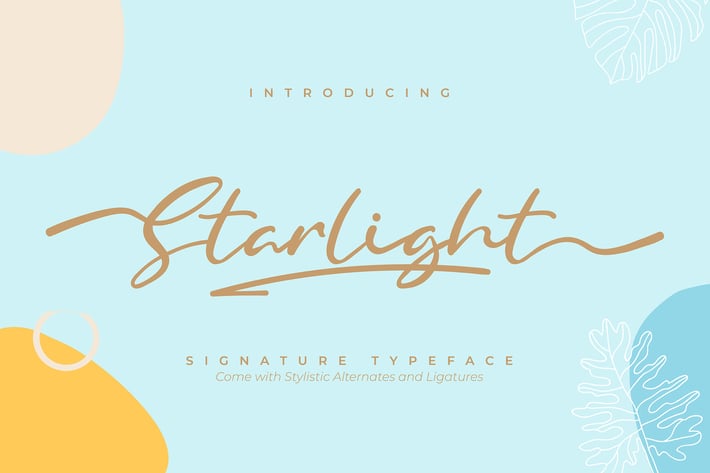
Starlight | Signature Typeface Font
Starlight | Signature Typeface Font with a calligraphy style, So beautiful on invitation like greeting cards, branding materials, business cards, quotes, posters, and more!